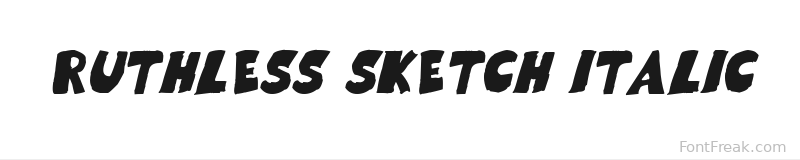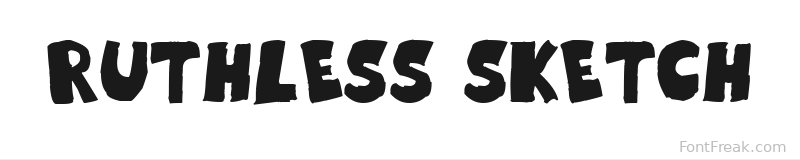
Ruthless Sketch
Ruthless Sketch Italic
About Ruthless Sketch
Ruthless Sketch by GGBot is a captivating display font that effortlessly blends a playful, handwritten style with a bold character. This unique typeface stands out with its irregular stroke weight and dynamic spacing, giving it an organic feel that mimics the spontaneity of hand-drawn lettering. The font features a slightly italicized design that enhances its lively appearance, making it ideal for projects that demand attention and creativity.
The visual characteristics of Ruthless Sketch are defined by its chunky letters and whimsical forms, which are both striking and approachable. The uneven edges and intentional imperfections add a layer of charm, making it perfect for creative applications. This font excels in use cases such as children's book covers, vibrant flyers, artistic posters, and social media graphics, where an informal yet impactful style is essential. Its versatility also makes it suitable for branding projects that aim to convey a sense of fun and creativity, appealing to small business owners and graphic designers alike.
Ruthless Sketch is particularly well-suited for content creators looking to inject personality into their designs. Whether you’re crafting eye-catching invitations for a birthday party or designing a trendy café menu, this font can bring your vision to life. The playful nature of Ruthless Sketch encourages a sense of joy and excitement in any project, making it a go-to choice for those who want to stand out in a crowded market.
In summary, Ruthless Sketch font free download offers a distinctive style that combines whimsy with boldness. Its unique characteristics and versatility make it a valuable asset for anyone seeking to make a memorable impression in their creative work.